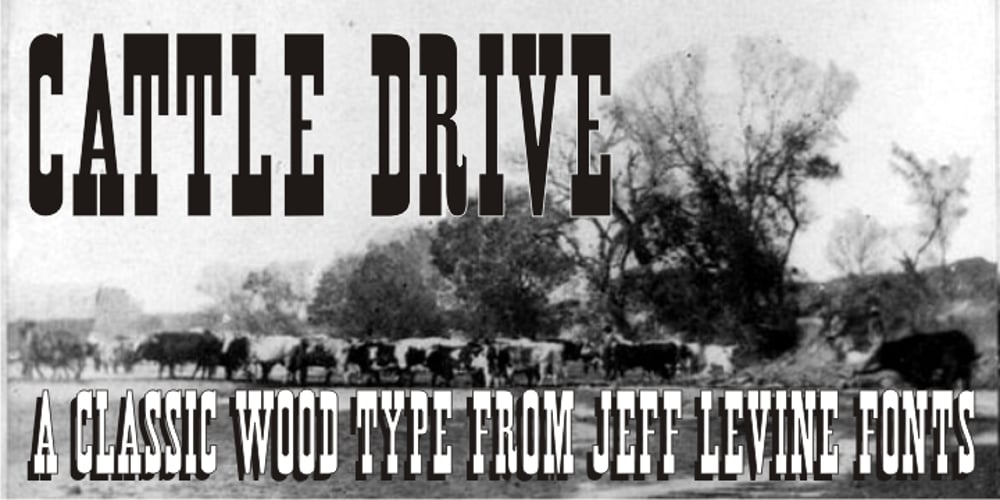
Cattle Drive JNL
Cattle Drive JNL font
Cattle Drive JNL Font Family was designed by Jeff Levine and published by Jeff Levine. Cattle Drive JNL contains 1 styles and family package options. Cattle Drive JNL is based on some examples of a classic condensed wood type. Lettering of this period lends itself well to themes of Western life, carnivals, circuses or classic broadside posters.